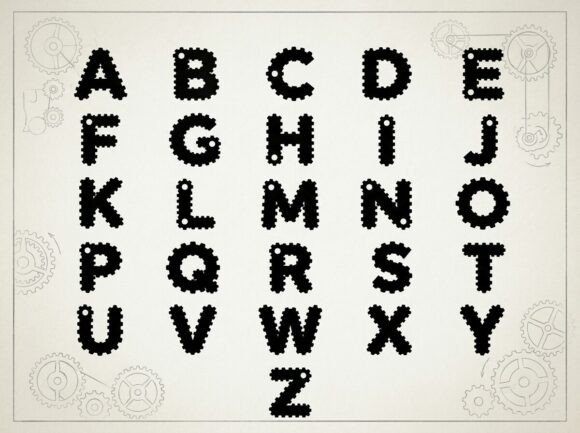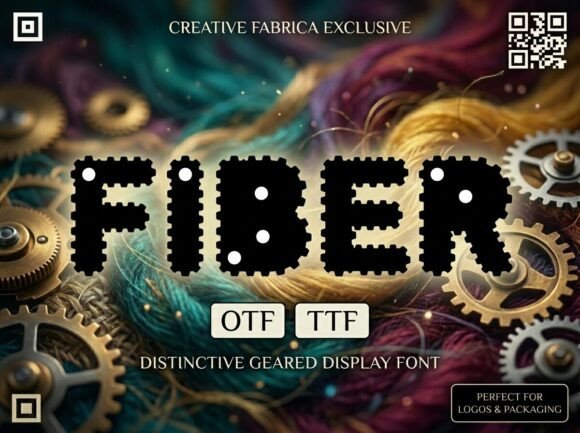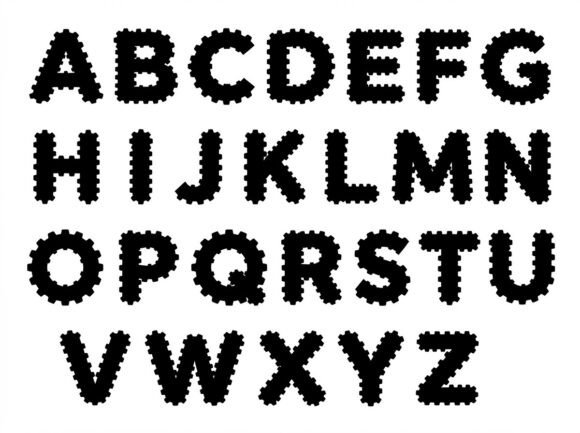
The Ultimate Display Font: Unleashing the Power of Fiber Font
Have you ever been in the middle of a design project, pouring your heart and soul into every detail, only to hit a roadblock when it comes to choosing the perfect font? I certainly have. It was during one of those moments, working on a high-end branding project for a luxury client, that I stumbled upon Fiber Font. This stunning decorative display font has been a game-changer for me ever since.
A First Impression: What Makes Fiber Font Special
Fiber Font is not just any ordinary font. It’s a masterpiece designed to be the center of attention, boasting unique artistic elements and a strong visual personality. Whether you’re a designer looking to elevate your branding projects, a crafter seeking that perfect touch for your DIY endeavors, or a creative hobbyist wanting to add some flair to your digital art, Fiber Font is the perfect choice.
Let’s get down to business. Here’s what I love about Fiber Font:
- ✨ Unique Artistic Elements: Each letter is a work of art, making it perfect for high-impact headlines, logos, and decorative initials.
- ✅ Professional and Polished Finish: Despite its decorative nature, Fiber Font maintains a level of professionalism that’s hard to find in display fonts.
- 💼 Versatility: It’s suitable for a wide range of projects, from bold headlines and artistic logos to creative packaging.
Now, let’s talk about a couple of quirks:
- ⚠️ ALL-CAPS Only: Fiber Font is an all-caps display typeface, which means it doesn’t include lowercase letters. This is something to consider if you’re looking for a font for body text.
- 🤔 Glyphs and Alternates: While Fiber Font supports OpenType features, glyphs, and stylistic alternates, you need to know how to access them to get the most out of it.
While the origins of Fiber Font remain a bit mysterious, it’s clear that the designer aimed to create a font that breaks away from the ordinary. Inspired by the intricate details of fiber art and the boldness of modern typography, Fiber Font is a testament to the power of creative expression.
| Is Fiber Font suitable for body text? | No, due to its decorative nature and lack of lowercase letters, Fiber Font is best used for headlines, logos, and decorative elements. |
| Does Fiber Font support OpenType features? | Yes, Fiber Font supports OpenType features, glyphs, and stylistic alternates, allowing for a wide range of creative possibilities. |
Fiber Font is more than just a decorative display font; it’s a tool for creative expression. With its unique artistic elements, professional finish, and versatility, it’s an excellent addition to any designer’s toolkit. Whether you’re working on a high-end branding project or a fun DIY craft, Fiber Font is sure to make a statement.